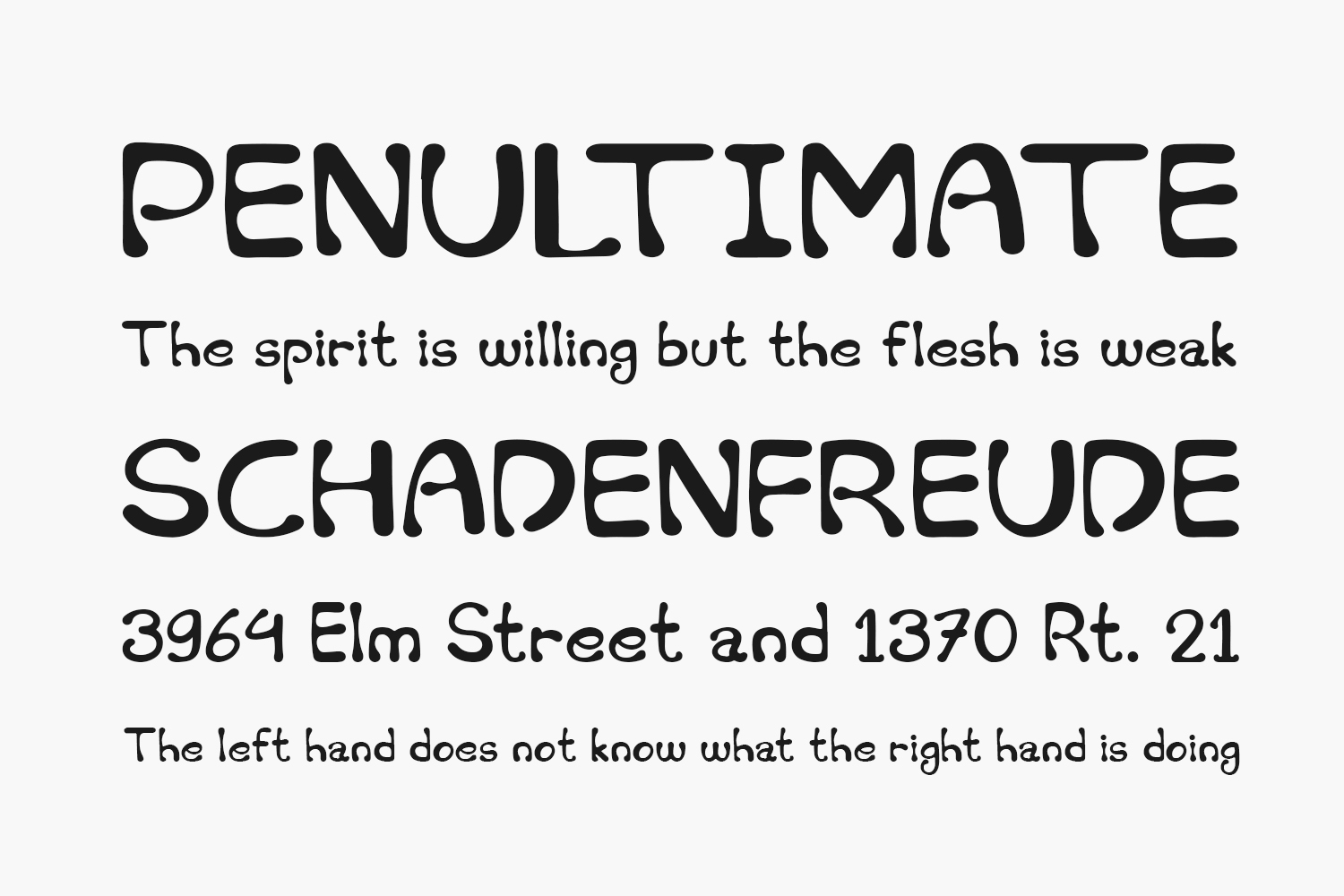
Chocolate Free Font is a modern and playful handwritten font. It can be used for various purposes such as wedding invitations, headings, bags, perfume, t-shirts logos, name cards, and every other design which needs a customized touch. Chocolate Free Font was designed by Ni Luh Purnamawati and is free for personal use only. Please purchase the full version for commercial use.
Designed by Ni Luh Purnamawati